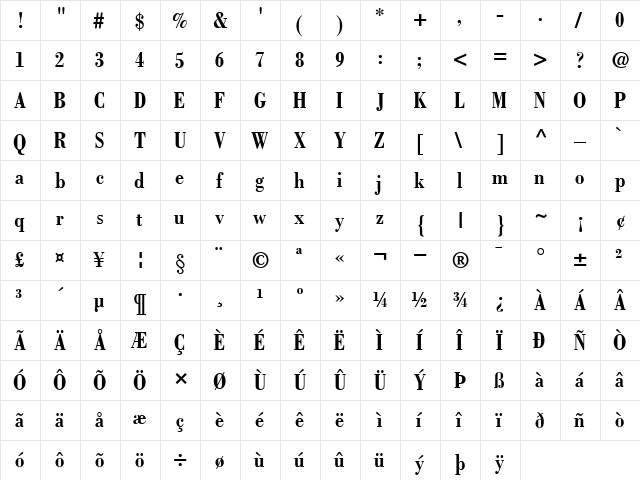
Bodoni-Condensed Bold Font Preview
Design Context for Bodoni-Condensed Typeface
Bodoni-Condensed offers clean, dependable letterforms without strong stylistic allegiance, making it a practical choice for designers who need flexibility. The heavy weight commands attention and anchors typographic hierarchies. Its narrow stance lets it pack a punch even in space-constrained designs.
Pro Tip: Pair Bodoni-Condensed with a font of contrasting weight or personality to build a more expressive typographic hierarchy.